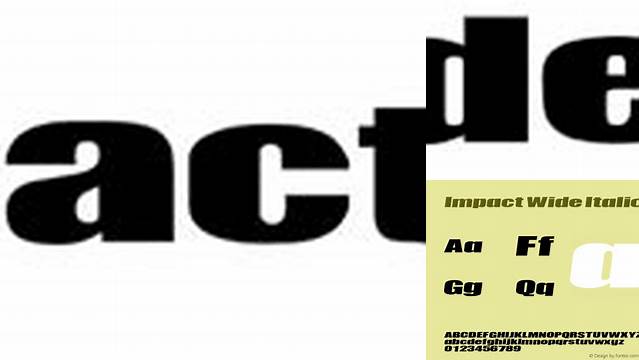
Hey guys! Ever needed a font that just screams for attention? Something bold, impactful, and instantly recognizable? Well, look no further than Impact Wide Font! This iconic typeface has been a staple in design for years, and today, we're diving deep into everything you need to know about it. From its free download options to how to use it effectively, we'll cover it all. Get ready to add some serious punch to your designs!
What is Impact Wide Font? A Deep Dive
Impact Wide Font isn't just another font; it's a statement. Its defining features include its thick, condensed letterforms, designed to grab your attention immediately. Originally created by Geoffrey Lee in 1965, Impact wasn't an instant hit. It gained significant popularity with the advent of the internet and has remained popular until now, especially in memes, posters, and headlines. The font's heavy weight and wide stance make it ideal for conveying a sense of authority, urgency, or simply, boldness. Imagine the difference between a whisper and a shout – Impact is definitely the shout! Its robust design ensures high readability, even at smaller sizes, making it perfect for both print and digital applications. The font's strong presence makes it a go-to choice when you want to make a point and make it big. Think of the iconic 'Keep Calm and Carry On' posters, the font used is a variation of Impact. This showcases its versatility, adaptability, and the legacy it's created. The simple, yet powerful design ensures that your message is the central focus. This font works because it is designed to deliver a message without any additional fluff. This is a perfect choice for those who want to be direct in their communications. Understanding the origins and the core attributes of a font like Impact Wide Font is a key to leveraging its potential. So, whether you're a seasoned designer or just starting, knowing how Impact works can significantly enhance your design toolkit. The key here is simplicity and impact, something that this font excels at, making it an evergreen choice for designers. This font is not just about aesthetics; it's about communication, clarity, and making your message unforgettable.
Using Impact Wide Font in Your Designs: Tips and Tricks
Now that you have the Impact Wide Font downloaded and installed, let's explore how to use it like a pro. The key to using Impact effectively lies in understanding its strengths and limitations. First, because it's so bold, it's best suited for headlines, titles, and short text blocks. Overusing it for body text can make your design feel cluttered and difficult to read. Think about the overall tone you want to achieve. Impact conveys strength, so it is perfect when you want to show power, authority, or a call to action. For example, it works incredibly well on movie posters, game titles, and promotional materials where you want to make a strong visual statement. When pairing Impact with other fonts, consider using a contrasting font for body text to create visual interest and improve readability. A clean, sans-serif font or a classic serif font can provide the perfect balance. Color choice is also crucial. Impact often works well with bright, contrasting colors. Black text on a white background is a classic combination, but you can also experiment with other bold color pairings. Make sure there's enough contrast between the text and the background to ensure readability. Don't be afraid to play around with different sizes and weights. Impact is designed to be versatile, but a great design is always a matter of balance. Remember, design is a visual communication, so make your message easy to read and understand. Also, consider the context of your design. The message is the key, and the use of a font like Impact should support this message. Using it in the right context, with the right colors, and the right balance is the key to making your design stand out. This is a font designed for impact, so use it to its full potential!
Alternatives to Impact Wide Font
While Impact Wide Font is a fantastic choice, sometimes you may want to consider alternatives. Maybe you want something with a slightly different feel, or perhaps you're looking for something with a more unique design. Let's look at some fonts that offer similar impact, but with different personalities. One option is Helvetica Black. It's a classic, clean sans-serif with a strong presence. It shares the bold feel of Impact, but with a more neutral and versatile aesthetic. It’s a great option if you like the boldness but want a more understated style. Another great option is Arial Black, which is similar to Impact in terms of its weight and bold design. It's a great choice for headings and titles. Another similar font is Bebas Neue. While not as heavy as Impact, Bebas Neue is a condensed sans-serif that still packs a punch. It's a great option if you want something modern and clean. For something more stylized, consider Oswald. It is a condensed sans-serif, similar to Impact, but with a more geometric feel. If you're looking for a font that leans more towards the retro side, try Bank Gothic. It has a bold, condensed design that's very similar to Impact, and it works really well for creating a classic or vintage look. When choosing an alternative, consider the overall tone of your design. You want to find a font that complements the message you're trying to convey. Try testing out a few different fonts to see what looks best. Think about the overall feel you are trying to achieve in your design, and then choose a font that matches that feel. Having a selection of alternatives will help you maintain the power of impact with any of your designs.
Conclusion: Unleash the Power of Impact Wide Font
So there you have it, guys! Impact Wide Font is a bold, attention-grabbing font that can elevate your designs. With its free download options and the right licensing, it's a fantastic resource for any designer. Remember to download from reputable sources, check the licensing terms, and experiment with different pairings and colors to achieve the perfect look. Whether you're creating a poster, a website heading, or a social media graphic, Impact can help you make a statement. Embrace the power of this iconic font and watch your designs come to life. So, go forth and create something amazing! We hope this guide has provided you with all the information you need to make the most of Impact Wide Font in your projects. Happy designing!